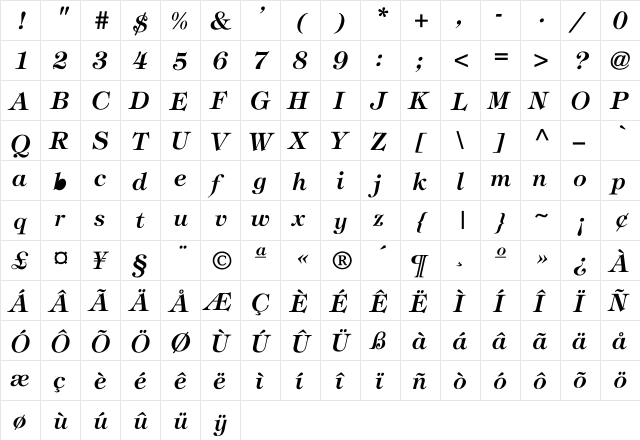
Timpani-BoldItalic Regular
Design Context for Timpani-BoldItalic Typeface
Timpani-BoldItalic offers clean, dependable letterforms without strong stylistic allegiance, making it a practical choice for designers who need flexibility. The slanted form adds forward momentum and visual energy. The heavy weight commands attention and anchors typographic hierarchies.
Pro Tip: Try Timpani-BoldItalic for annotation and caption copy alongside an upright companion — the contrast in angle creates a dynamic but ordered typographic system.